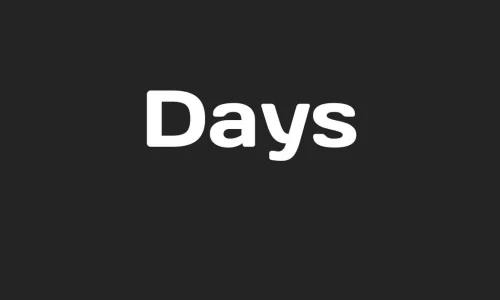
Introducing the Canadian Gibson font, designed by Rod McDonald, a beautiful Sans-Serif typeface. Patrick Griffin and Kevin King added this font to Canada Type in honor of John Gibson.
For improvement in arts and design education in Canada, all the profit is donated by Canada Type. CanadaType is a design studio situated in Toronto. They are contributing continuously to the digital world efficiently since 2004. This font give elegant designs when paired with Varsity Font.